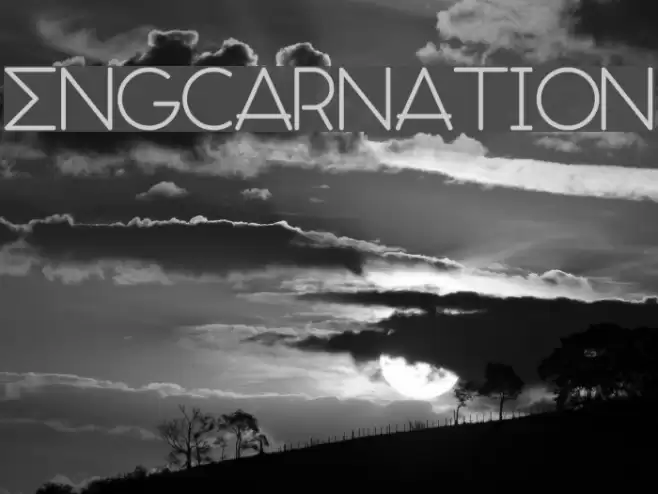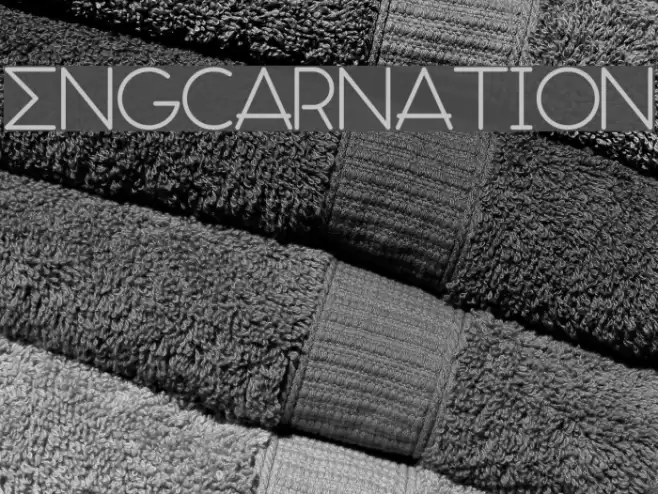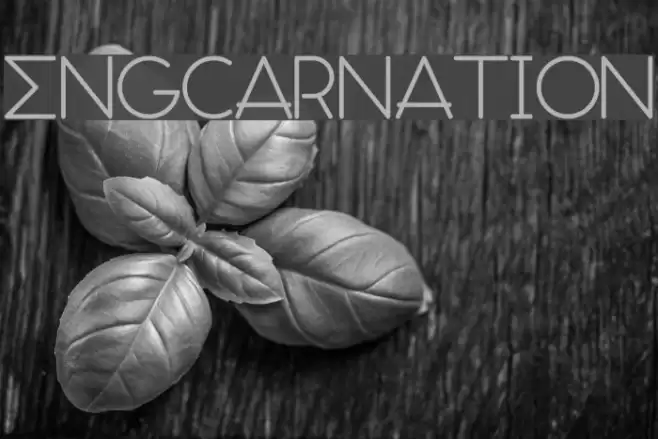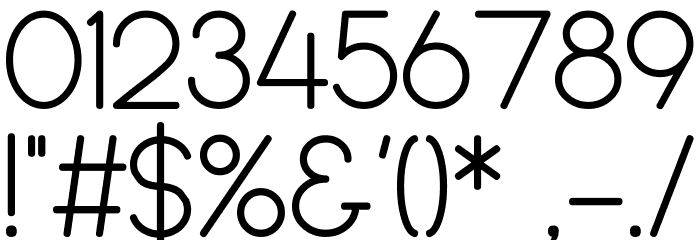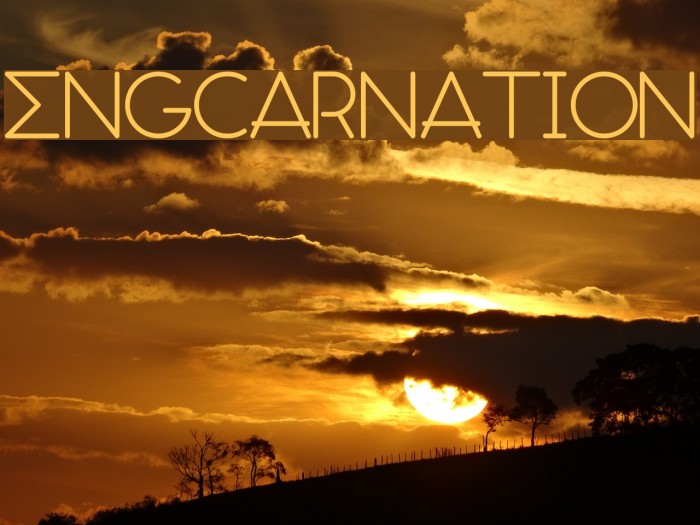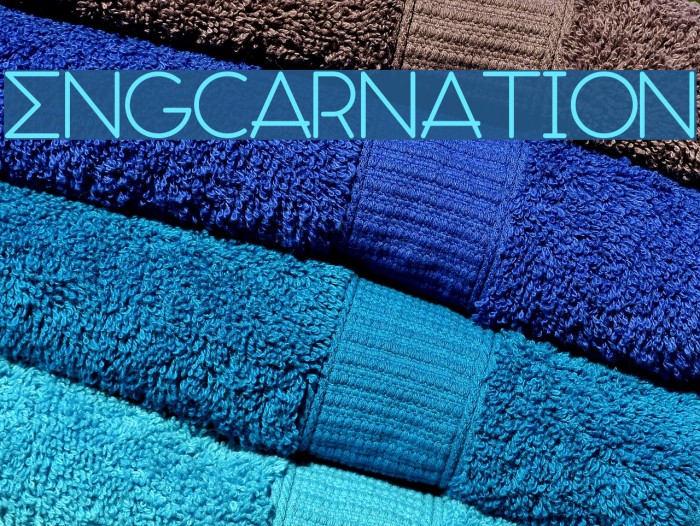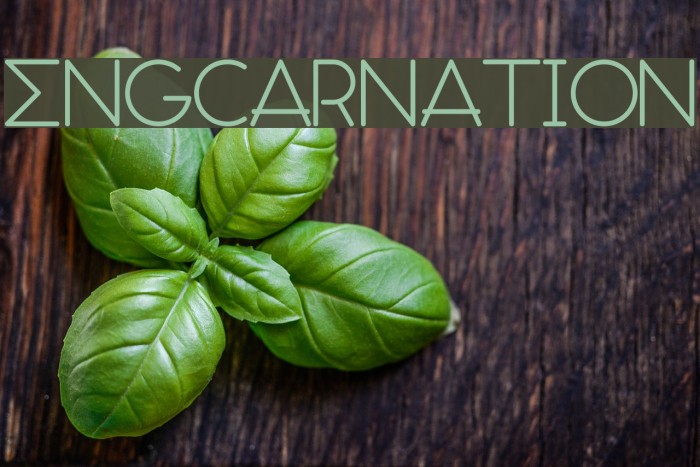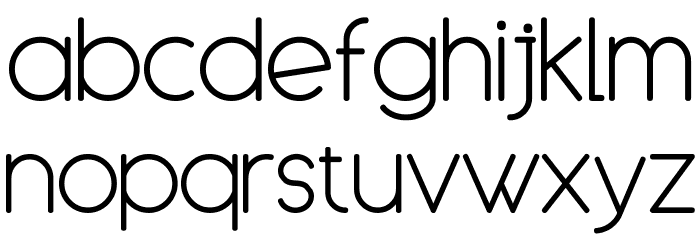
ENGCARNATION Font
ENGCARNATION Description
This font features a clean and modern sans-serif style with geometric influences. The uppercase letters are distinct with a uniform stroke width, giving a balanced and harmonious appearance. The lowercase letters maintain a similar geometric structure, providing a cohesive look across different cases. The numerals are clear and legible, making them suitable for various applications. Special characters are well-designed, ensuring consistency with the overall aesthetic. The font's simplicity and clarity make it versatile for both digital and print media.
A modern, geometric sans-serif font with uniform stroke width from Uncategorized fonts.
- Proposed Projects: Ideal for branding, digital interfaces, signage, and editorial design.